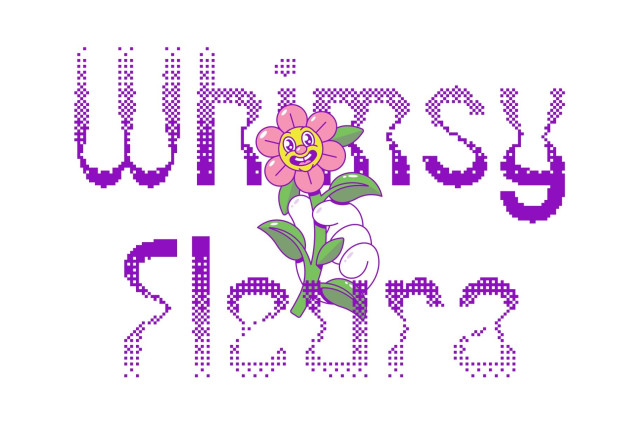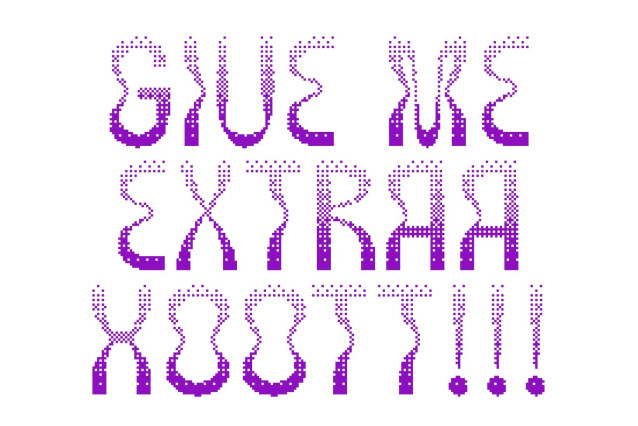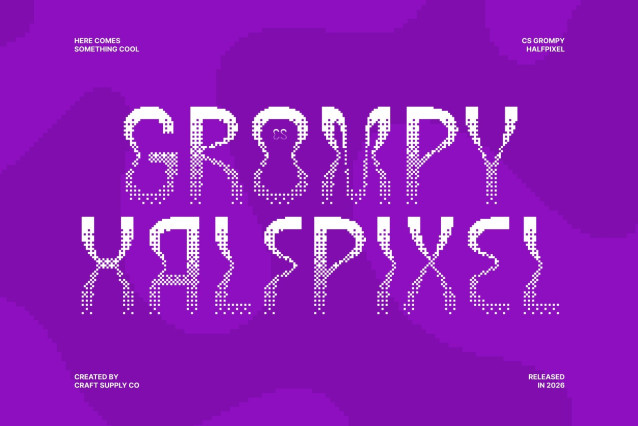
CS Grompy Halfpixel – Psychedelic Display Font: Where Retro Futurism Meets Vibrant Digital Energy
Psychedelic Forms with Dynamic Visual Flow
This is a modern display font that captures the vibrant spirit of psychedelic design through dynamic shapes and expressive visual energy. Its unconventional curves and lively structure create a bold and imaginative appearance filled with movement, creativity, and retro-inspired attitude.
Halfpixel Effect with Smooth Digital Aesthetic
This font delivers a softer and smoother appearance compared to traditional rigid pixel fonts. Using subtle anti-aliasing techniques, the font introduces gentle blurring along the edges of each letterform, creating a refined digital texture while maintaining a nostalgic retro-tech atmosphere. This balance gives the font a futuristic yet approachable character.